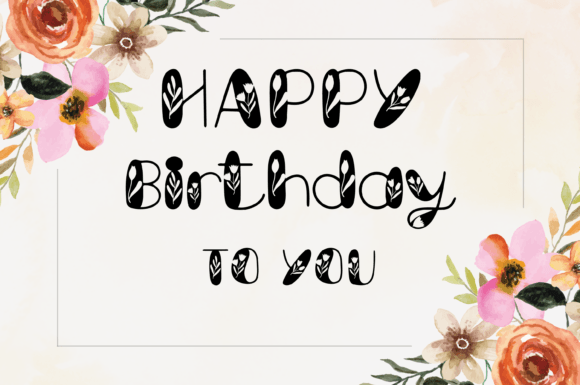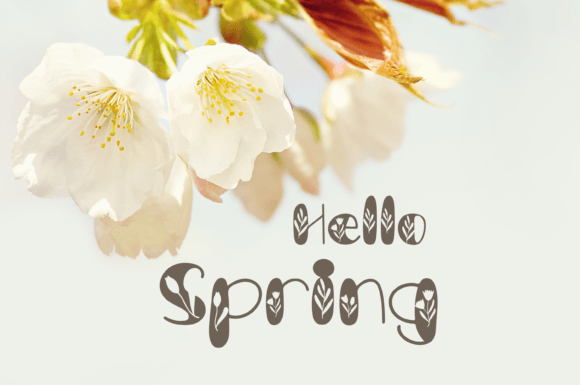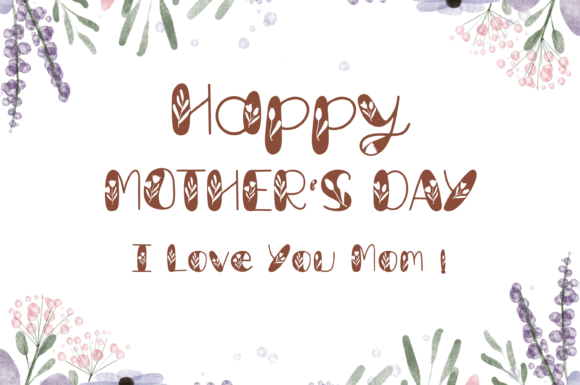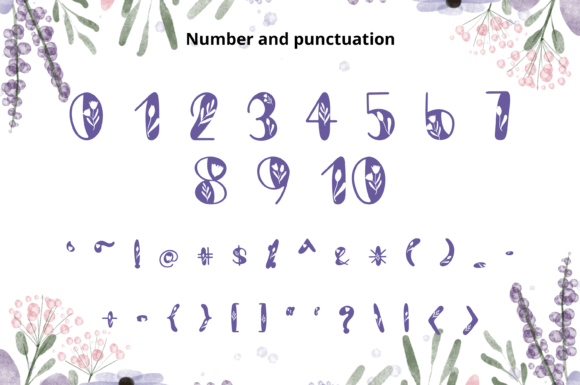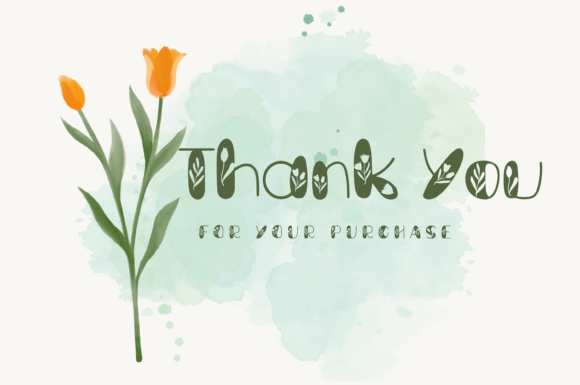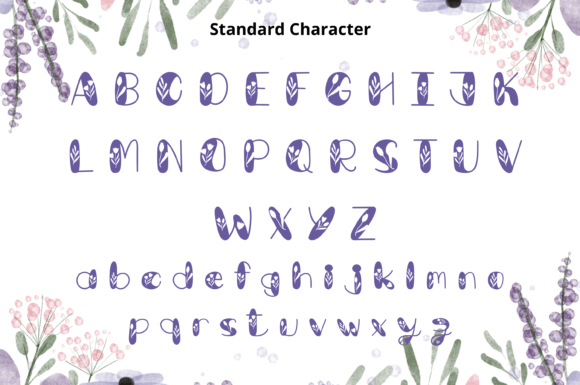
Introduction to Grand Crocus Font
As a designer, have you ever found yourself in a creative rut, staring at a blank screen, searching for the perfect font to bring your project to life? It’s a moment we’ve all been in, and it’s exactly why we’re excited to introduce you to the Grand Crocus Font – a whimsical and fun display font that’s sure to add a pop of personality to any design.
Key Features of Grand Crocus Font
- High-quality, professional font design ideal for creative projects and design resources.
- Features a unique, elegant design that is perfect for a wide range of creative projects, from logos to typography-based art.
Honest Review: Grand Crocus Font
I recently had the chance to work with the Grand Crocus Font for a creative project, and I must say it’s been a great addition to my design resource library. ✨
- One of the standout features of the Grand Crocus Font is its high quality and detailed design. It’s perfect for anyone looking for a unique and elegant font to use in their next design project.
However, there are a few limitations to keep in mind: ⚠️
- The font may not be suitable for use in very small text sizes, as the details can get lost.
- It’s also worth noting that the font is quite ornate, which may not be the best fit for every design project.
Overall, I’m really impressed with the Grand Crocus Font and would definitely recommend it to fellow designers looking for a high-quality, creative design resource.
Tips for Getting the Most Out of Grand Crocus Font
To get the most out of Grand Crocus Font, use it in creative projects that require a high-quality, unique design element. Consider using it in conjunction with other design resources to add depth and visual interest. Experiment with different font sizes, colors, and arrangements to find the perfect look for your project.
Grand Crocus Font is commonly used in invitations, greeting cards, and other paper crafts. It’s also suitable for digital designs, such as social media graphics, blog posts, and presentations. Its versatility makes it a valuable design resource for various creative projects.